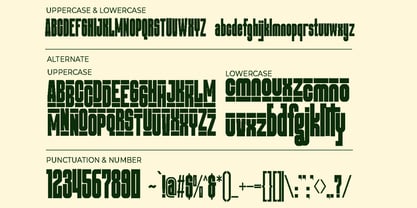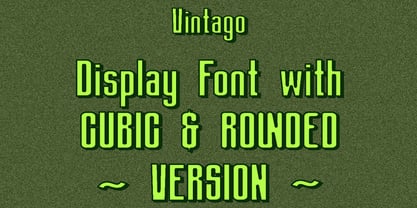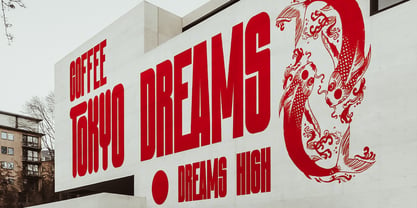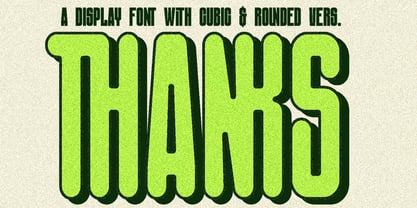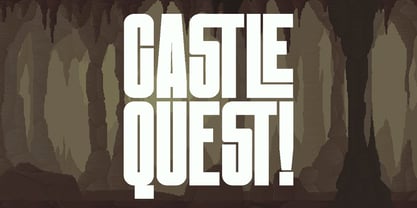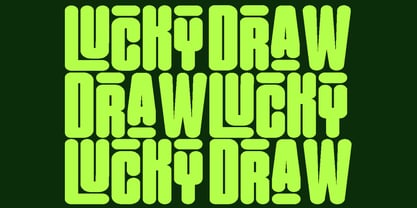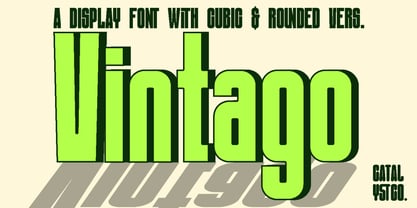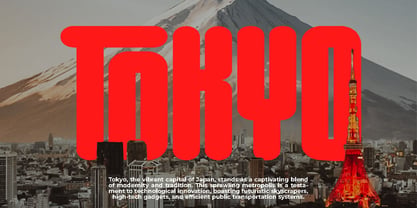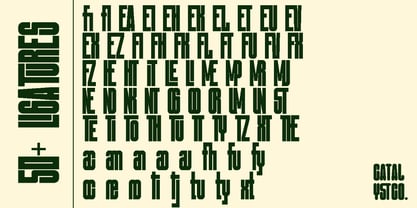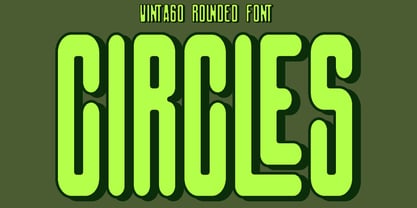
Vintago
by Catalystco Std
The Vintago Font Family was designed by and published by Catalystco Std. Vintago contains 2 styles and family package options. More about this family
Vintago is a retro-inspired display font that combines cubic and rounded versions in a bold, modular construction. Designed with a strong visual rhythm, it features over 50 custom ligatures and a wide range of alternate characters for creative versatility. Suitable for logos, poster titles, event graphics, and vintage-style branding, Vintago offers uppercase, lowercase, punctuation, and multilingual support. Vintago is ideal for branding projects, poster design, editorial layouts, fashion campaigns, social media graphics, and music artwork. Its bold, structured letterforms work especially well in visual compositions that require strong retro.